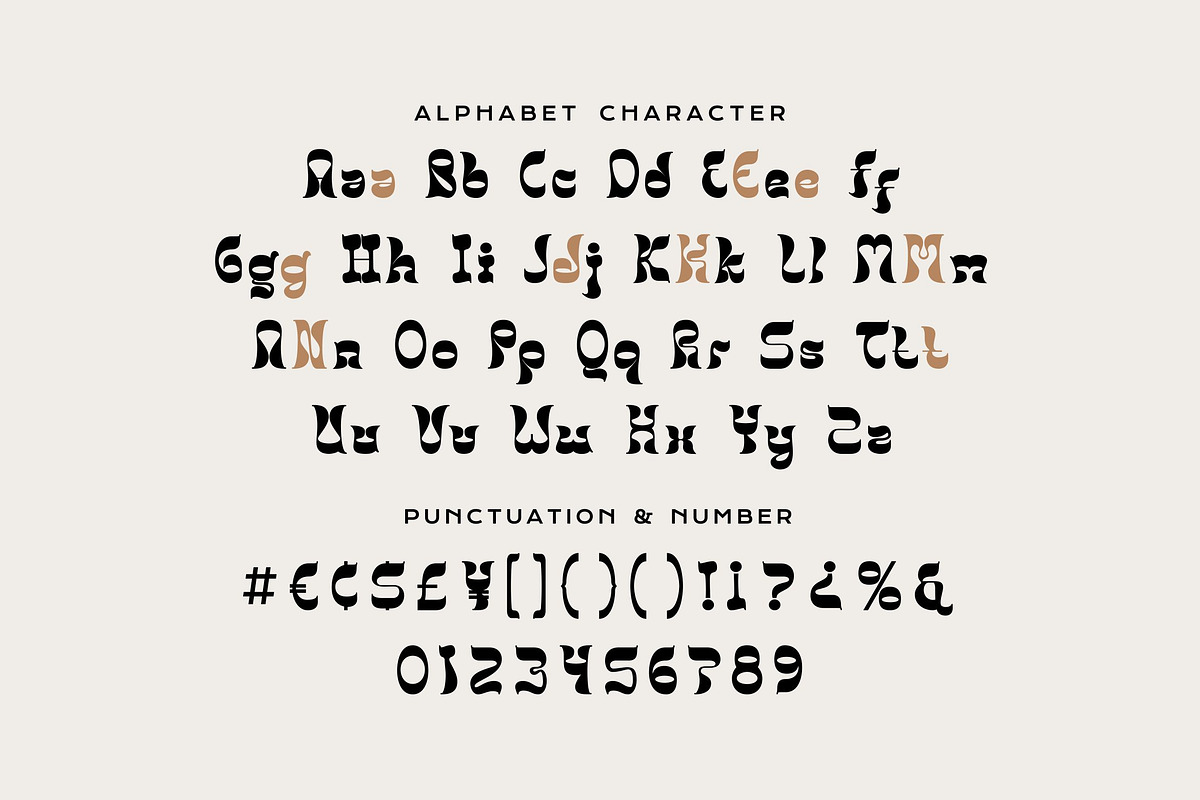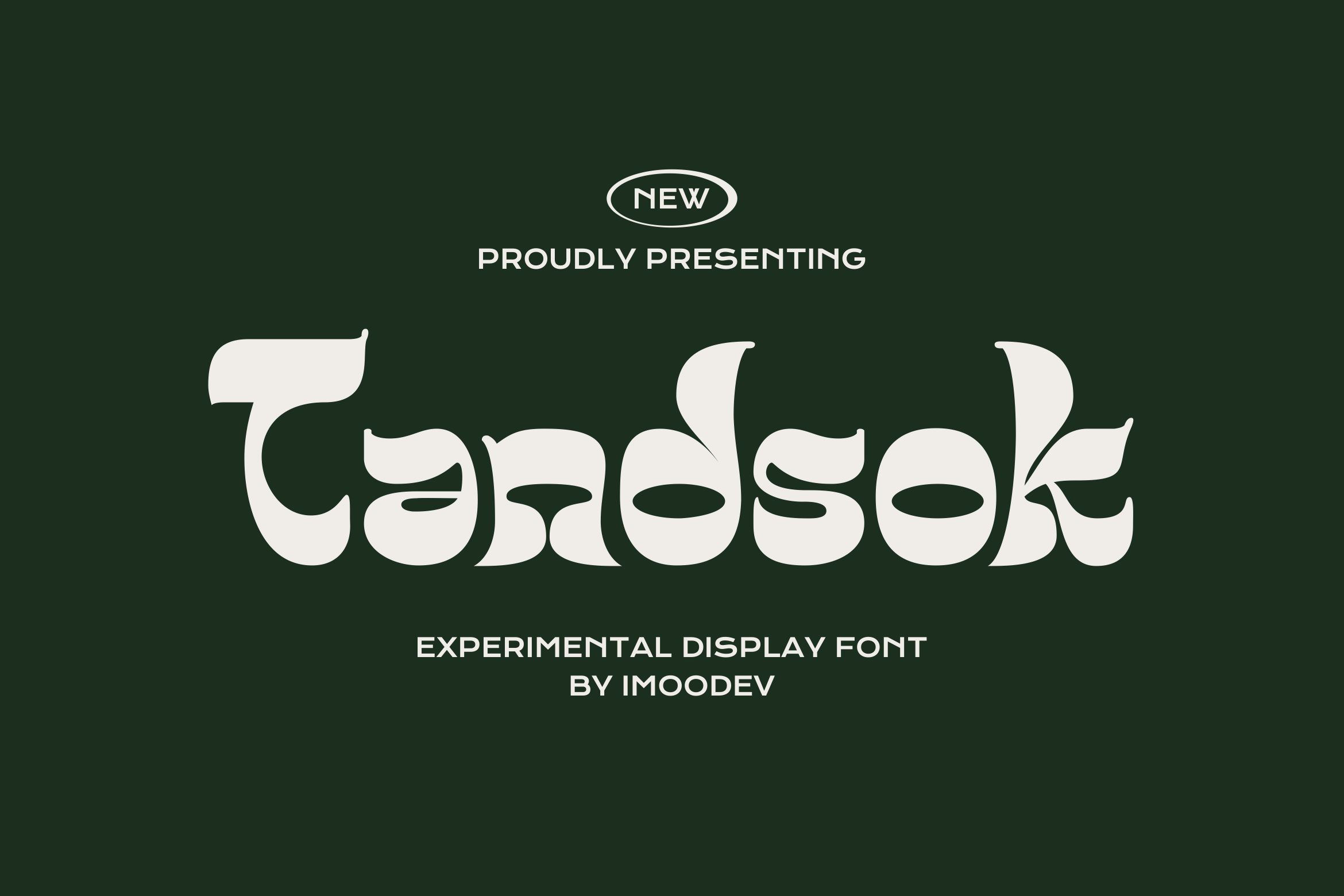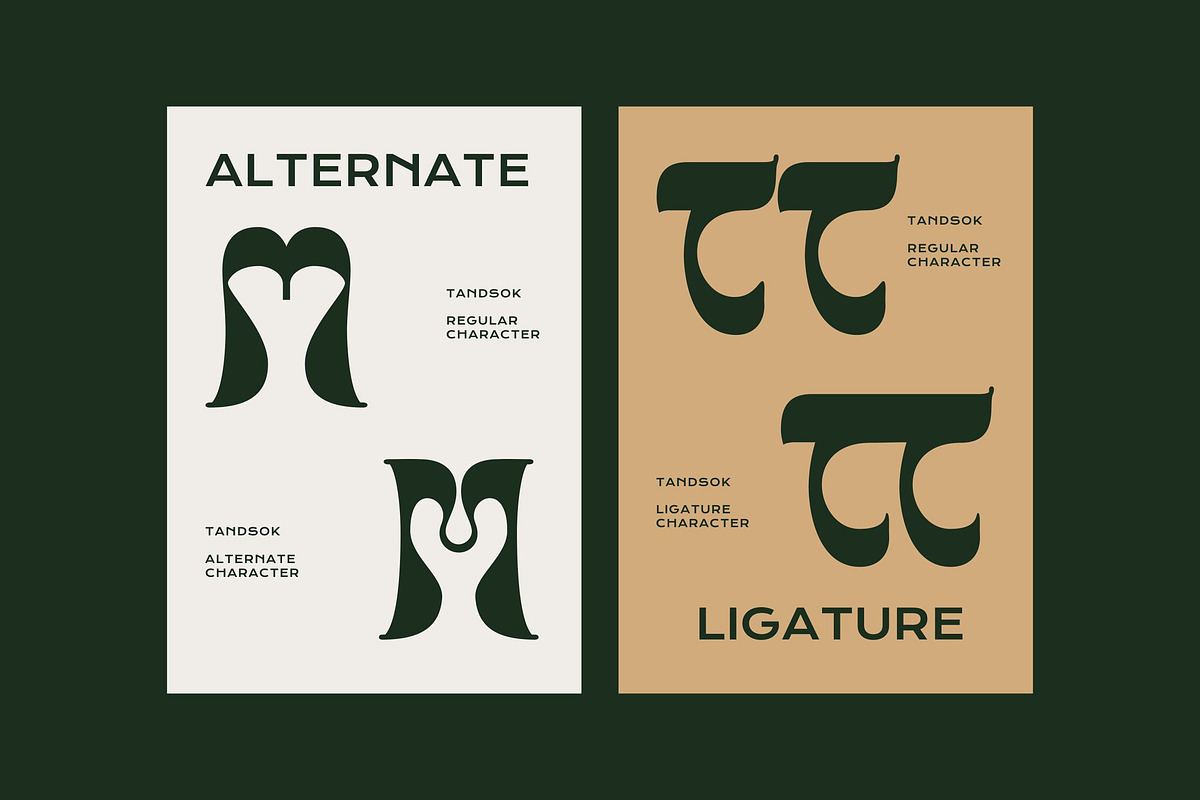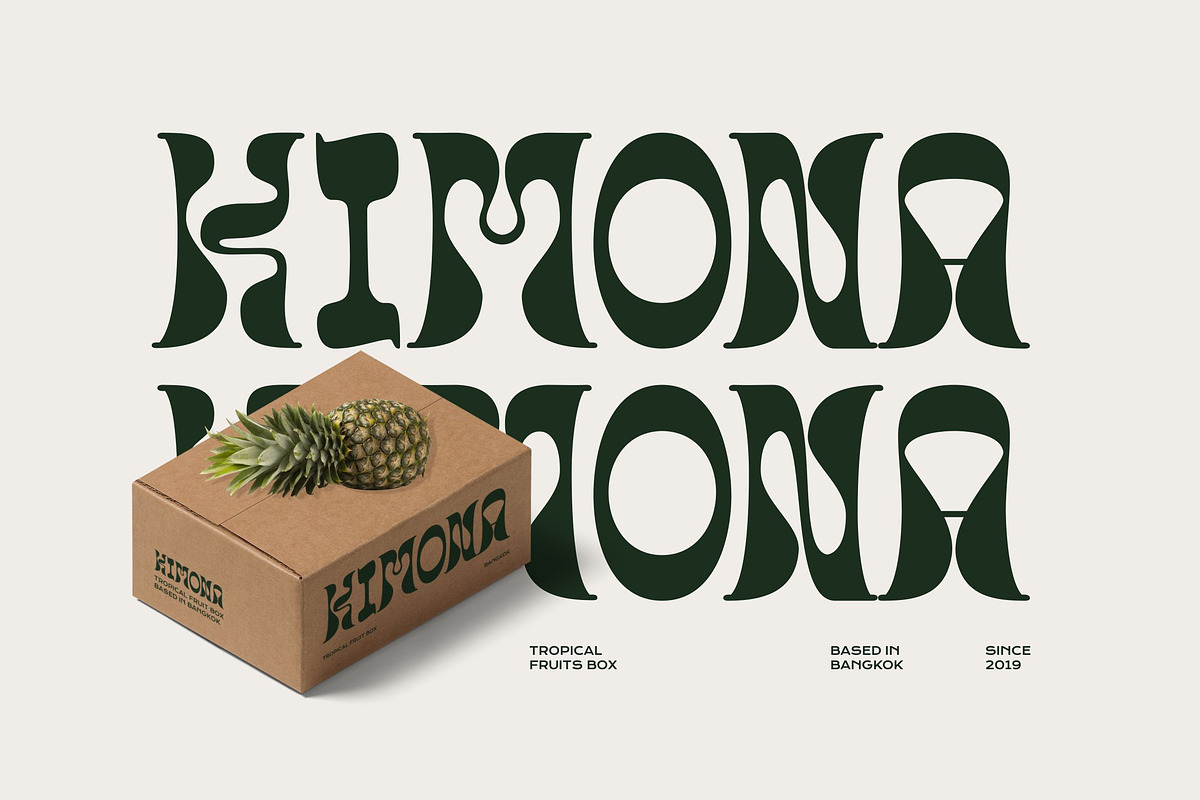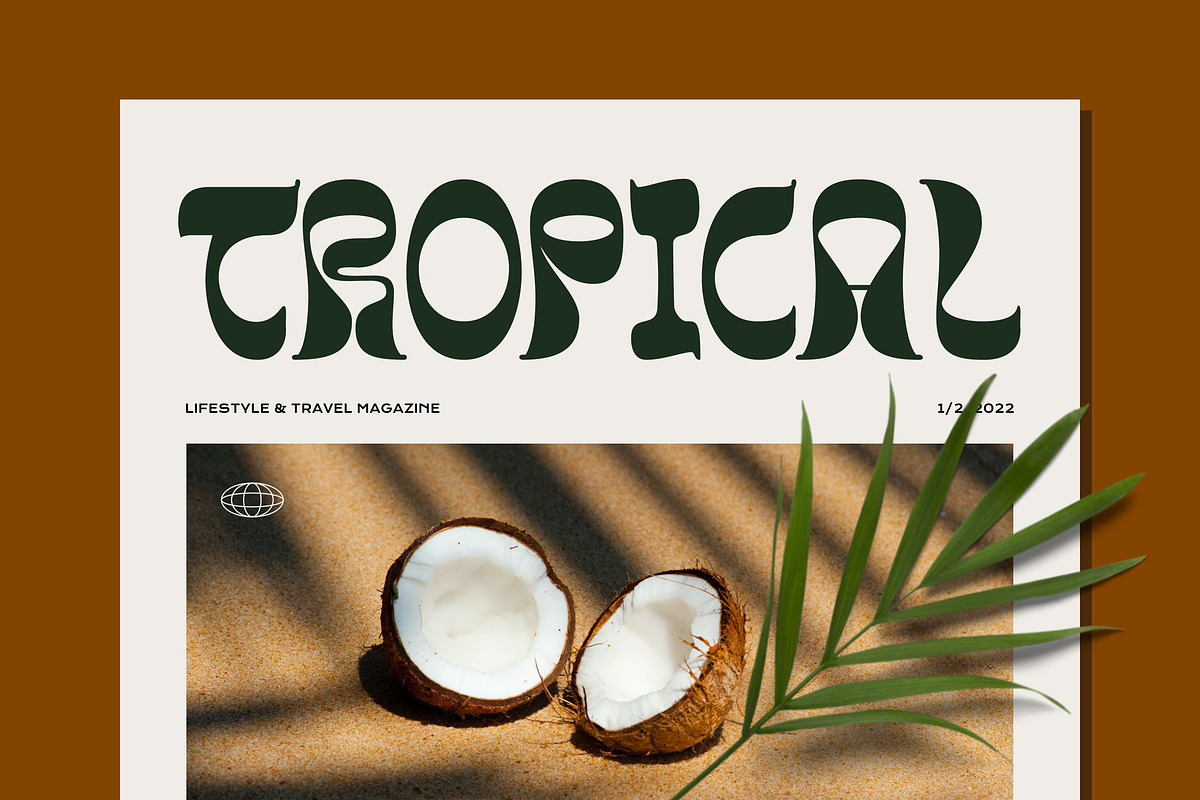
Tandsok - Experimental Display Font
Tandsok is an experimental display font that blends the psychedelic style of the 1970s with a touch of tropical botany. Its thick strokes expand and merge with sharply pointed ends. With rounded contours, each letter is crafted with unique negative space cuts, subtle asymmetry, and distinctive details.
This font is ideal for designers who want their work to feel expressive, memorable, and artistic. Its bold, unique silhouette makes it perfect for projects with tropical, vintage, or bohemian vibes. Suitable for eye catching posters, mastheads, logos, and packaging.